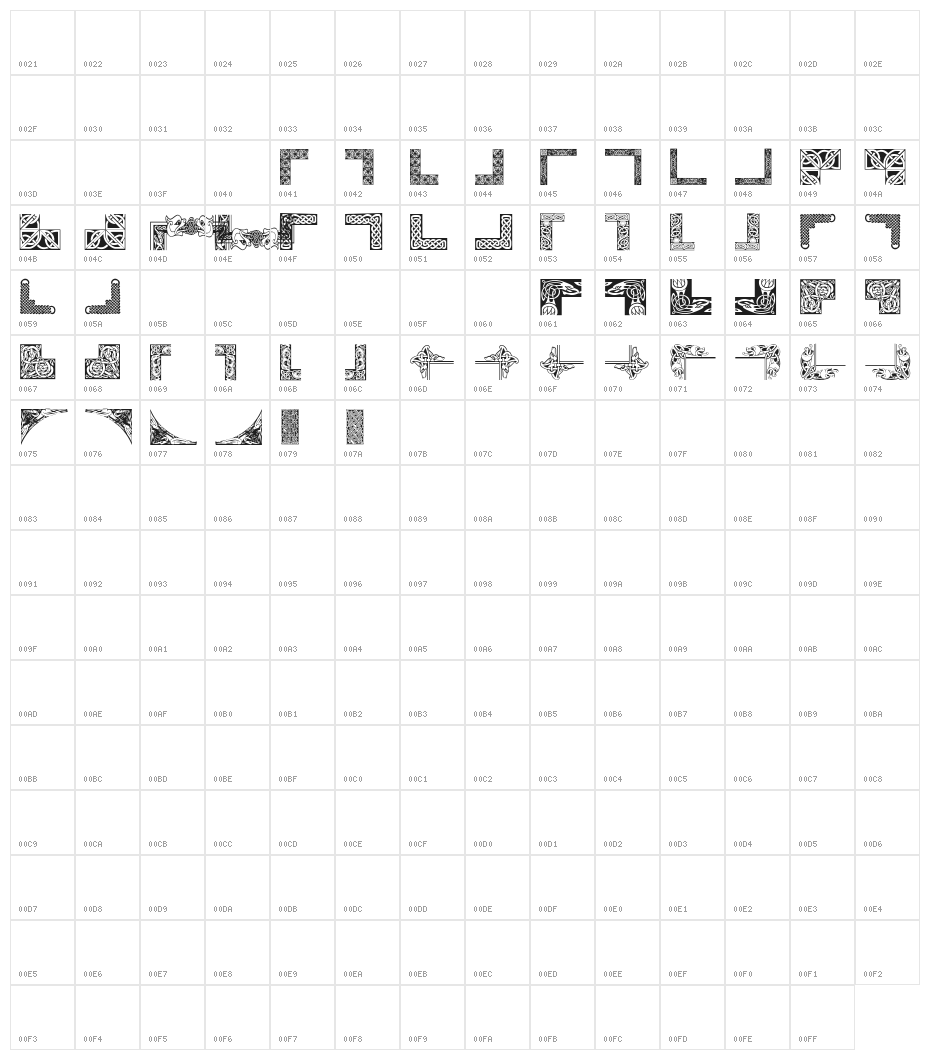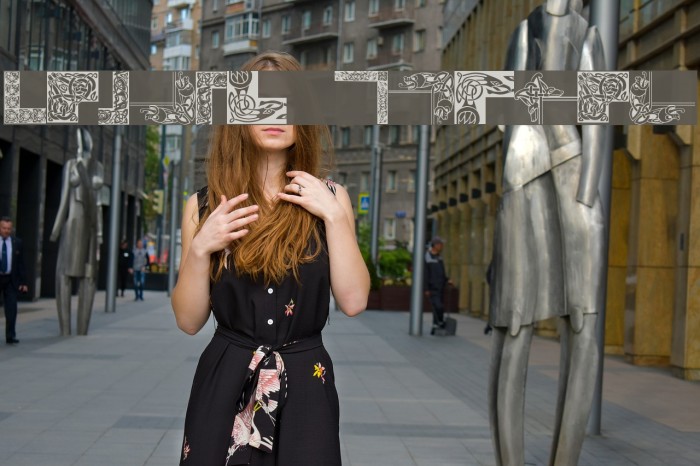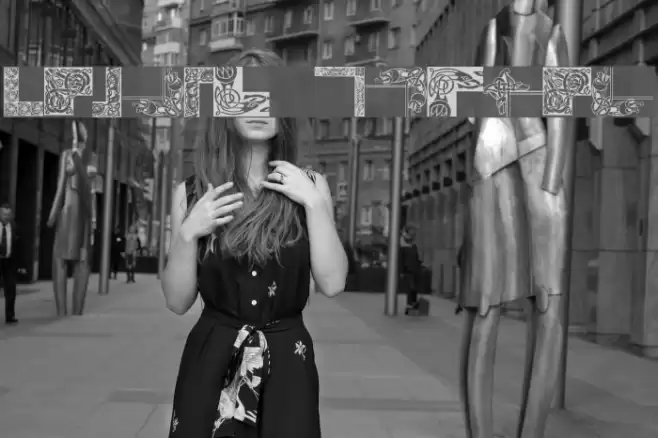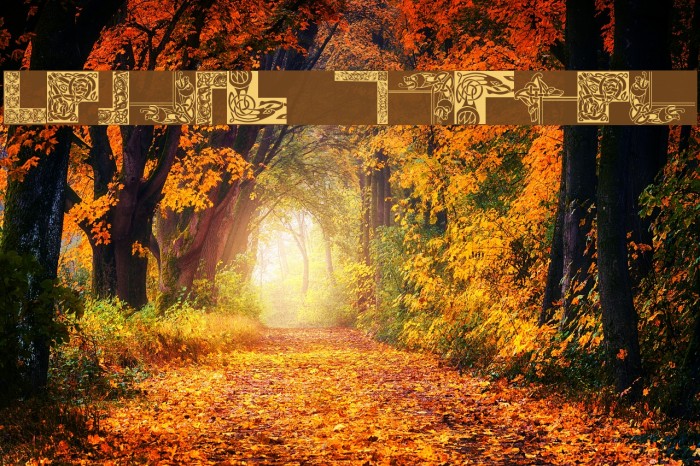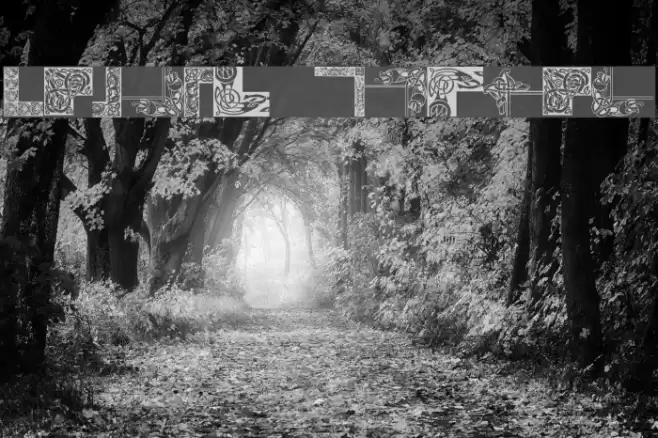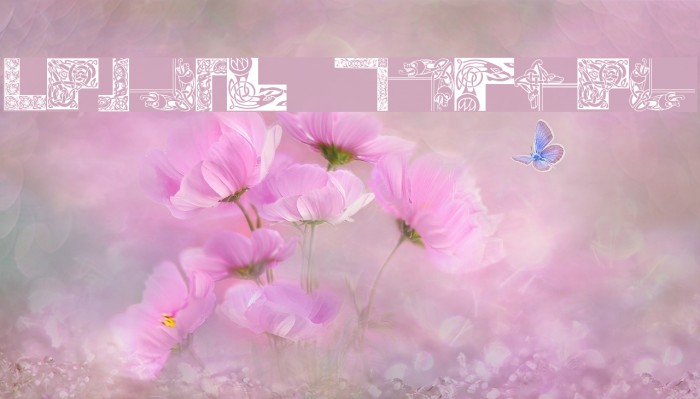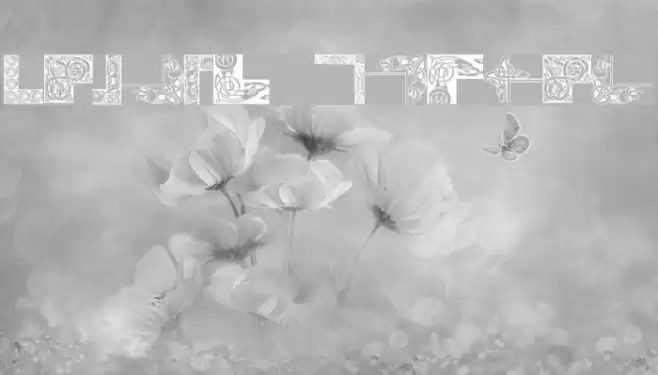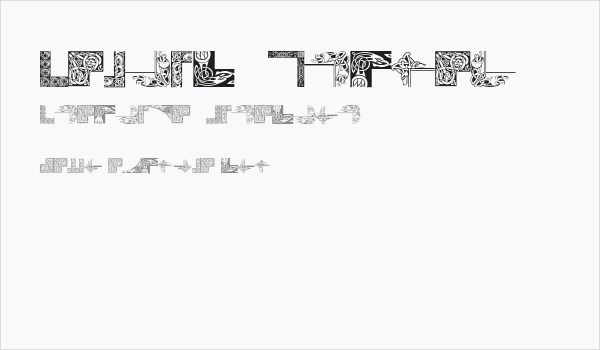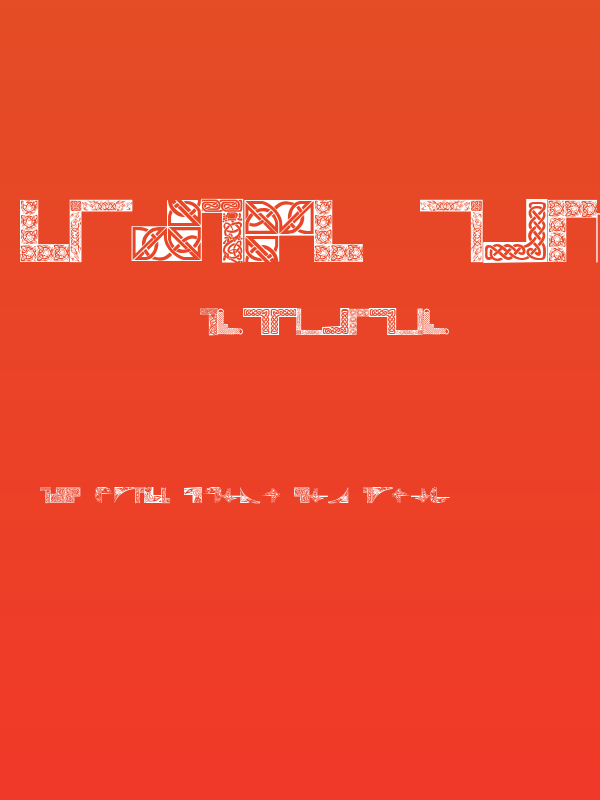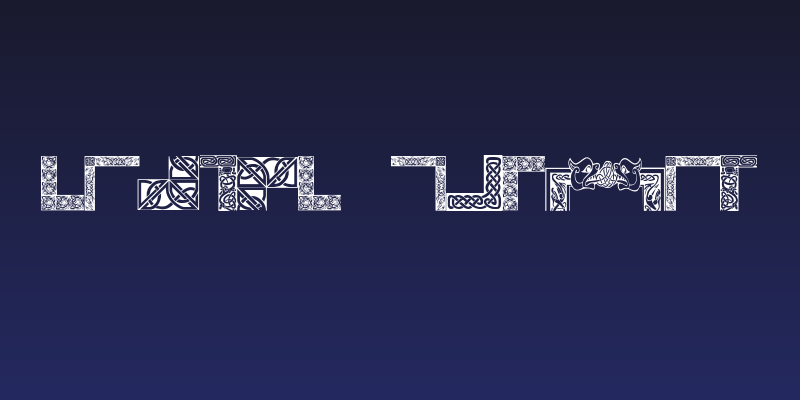
Celtic Frames Font
Celtic Frames Description
Highly decorative font featuring intricate Celtic knotwork and frame-like embellishments around each character, with detailed patterns and animal motifs integrated into the letterforms.
| Overall Style | Decorative, Celtic, Ornamental |
| Use Case | Logos, Headlines, Decorative borders, Themed event materials |
| Proposed Projects | Book covers, certificates, invitations, fantasy or historical themed posters, decorative headings. |